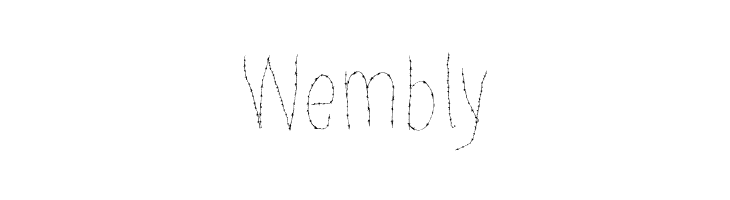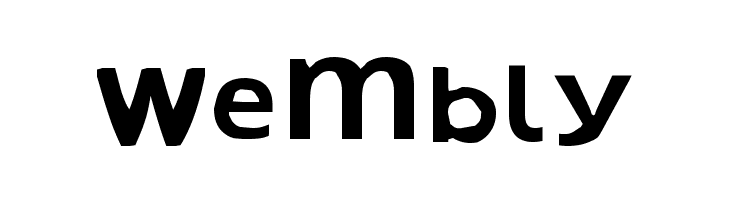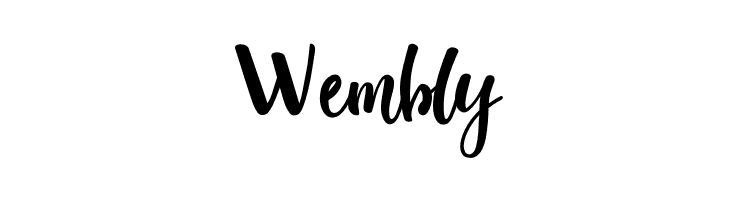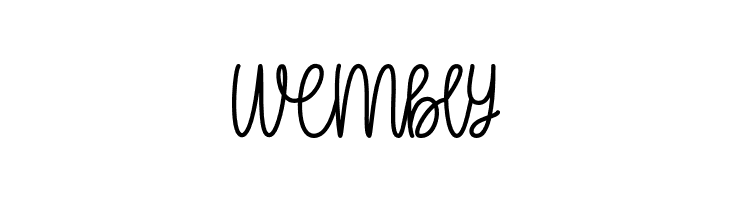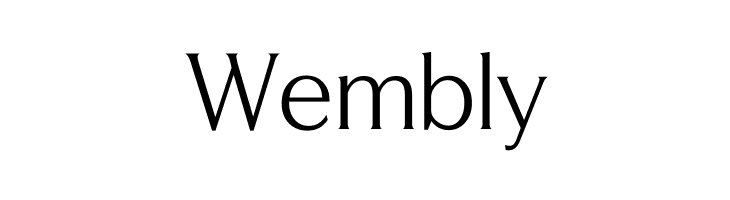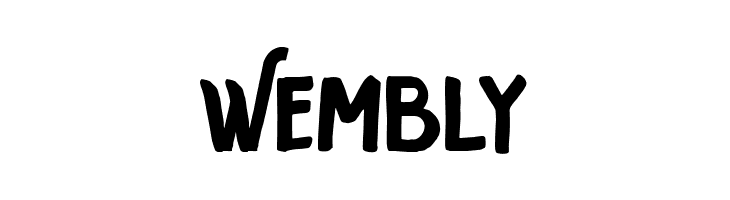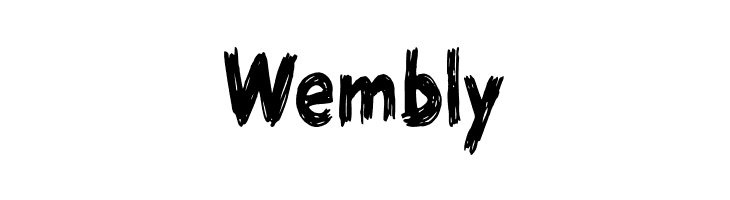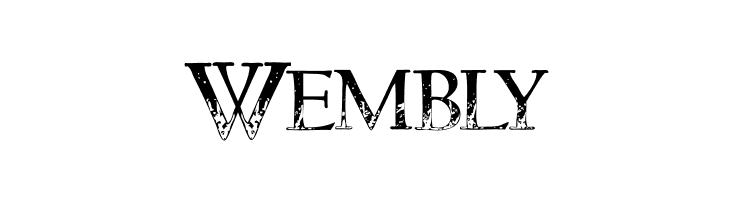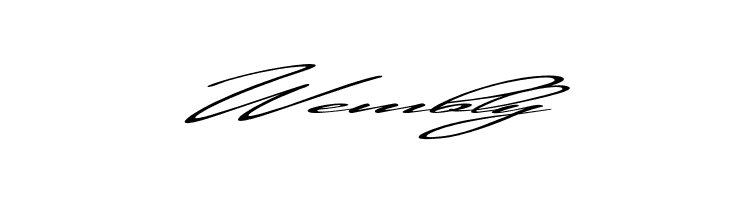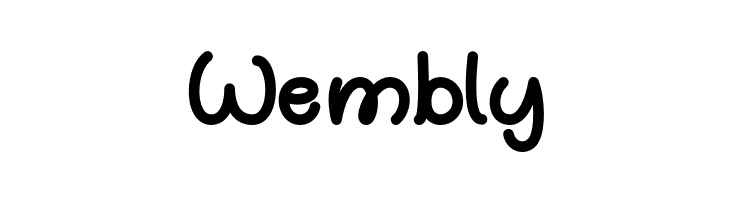
• OhMyItsJuly
A playful, handwritten cursive font with fluid, interconnected strokes.
• OhWhale
A playful, hand-drawn font with rounded, bold characters and a whimsical style.
• Oilrig
• Okashi^ Regular
A playful, handwritten font with a whimsical and dynamic style.
• Old Barbwire
A rugged, barbed wire-inspired font with a hand-drawn appearance.
• Old Gorgeous
• Old School Adventures
A retro, pixelated font inspired by early digital and arcade games.
• Old School Adventures
• Old Time Villain
A playful, hand-drawn font with dynamic curves and uneven lines.
• Old Wise Sketch
A bold, intricate blackletter-style font with a sketch-like appearance.
• Oldventure
A playful, hand-drawn font with bold, irregular strokes and a dynamic appearance.
• Olean
A sophisticated script font with high contrast and flowing, interconnected letters.
• Olyber Demo
An elegant script font with flowing, interconnected letters and a sophisticated style.
• Om Telolet Om
• Ombeline Ludolphides
An elegant script font with flowing, interconnected letters and ornate flourishes.
• OmTeloletOm
A playful handwritten font with a lively and informal style.